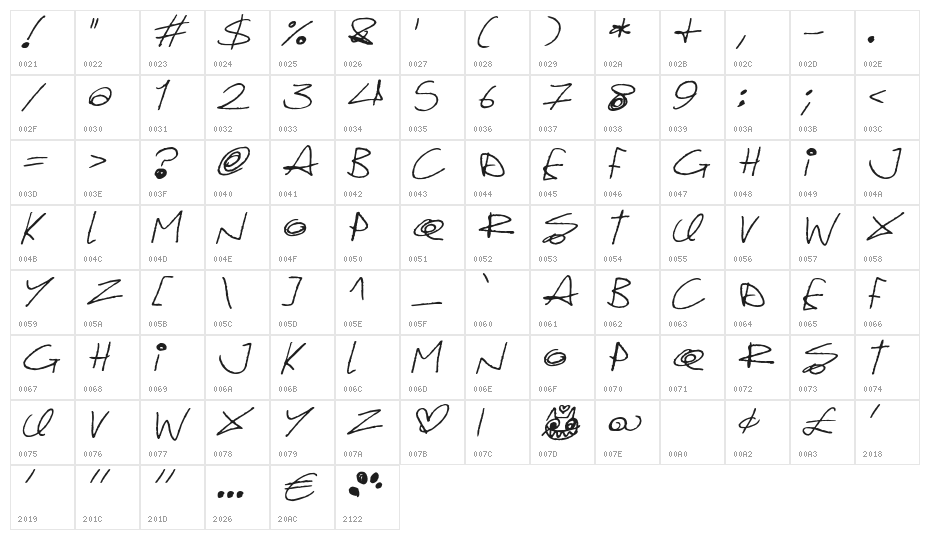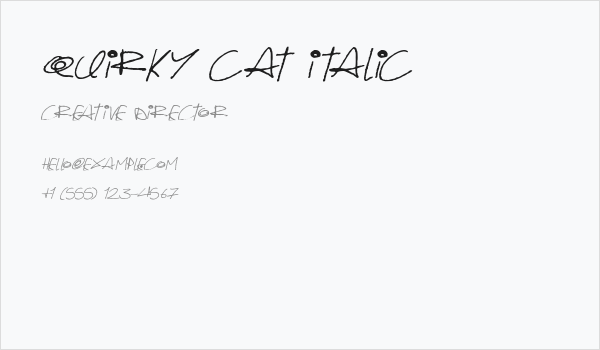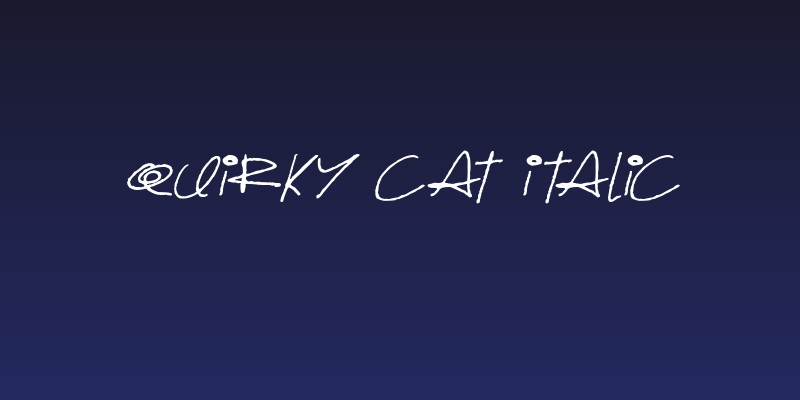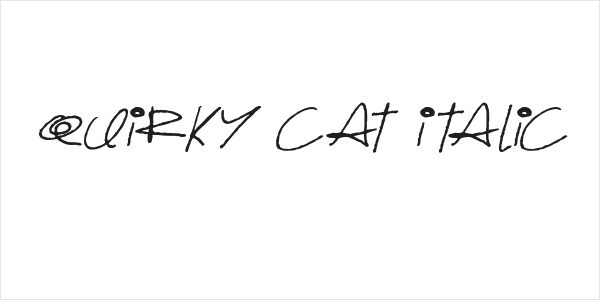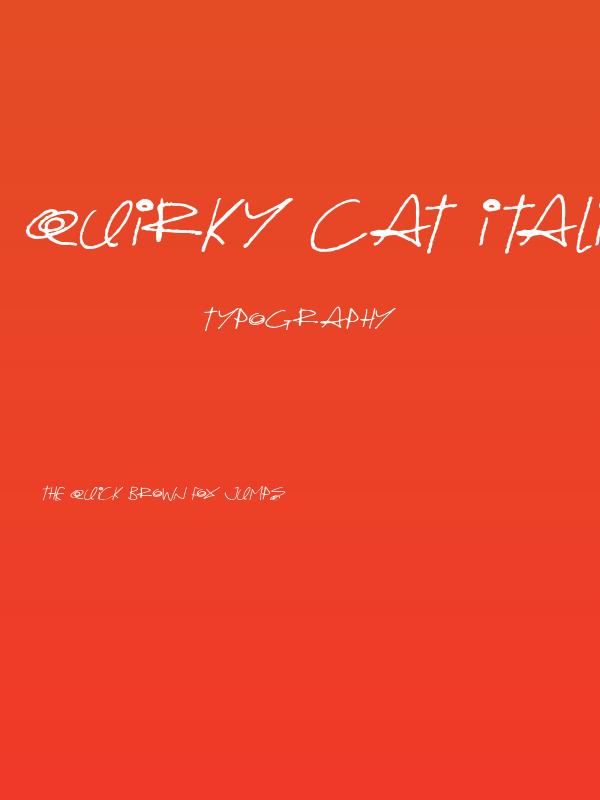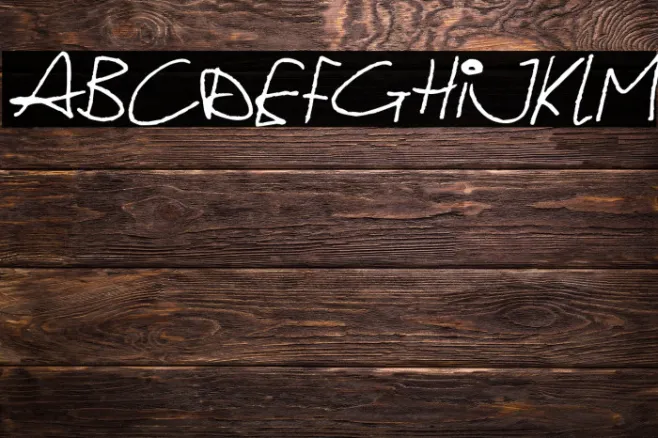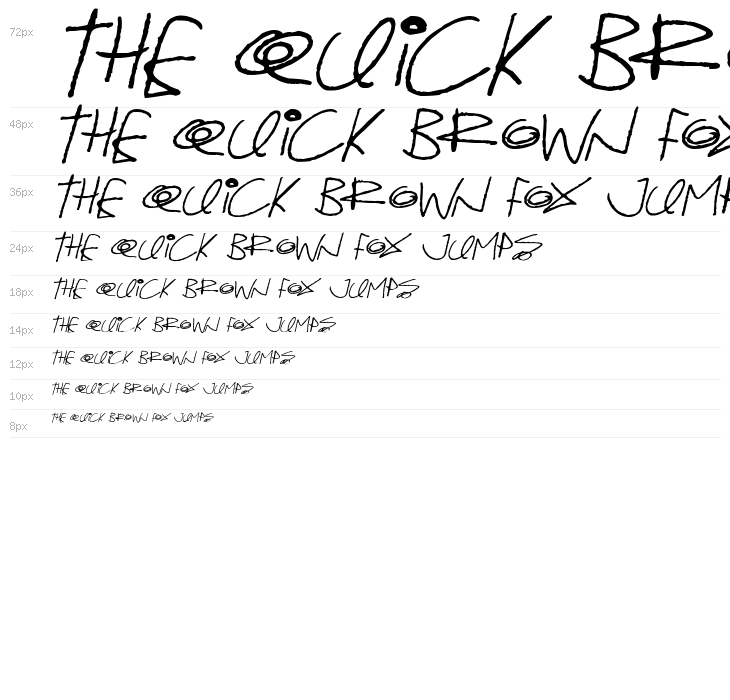
Quirky Cat Italic Font
Quirky Cat Italic Description
This font exudes a playful and whimsical character, with each letter appearing as if it has been hand-drawn with a casual, carefree flair. The strokes are uneven and dynamic, giving it a lively and energetic feel. The uppercase and lowercase letters maintain a consistent style, with quirky loops and swirls that add to its charm. The numerals and special characters follow the same playful design, making the font suitable for creative and informal projects. Its unique style makes it stand out, capturing attention with its artistic and unconventional appearance.
| Proposed Projects | Ideal for children's books, playful branding, creative posters, and artistic invitations. |